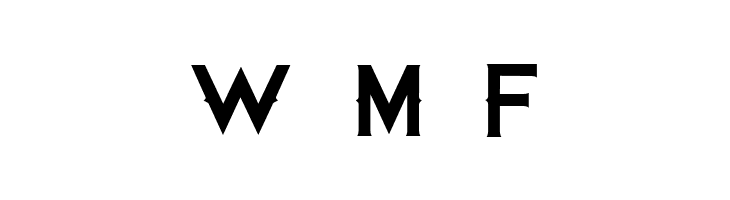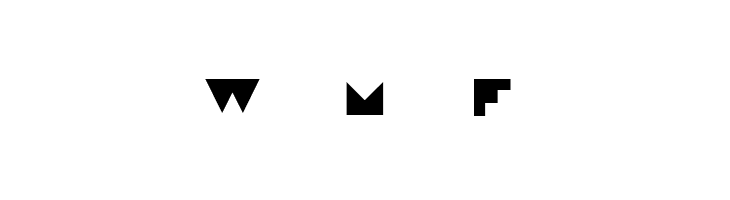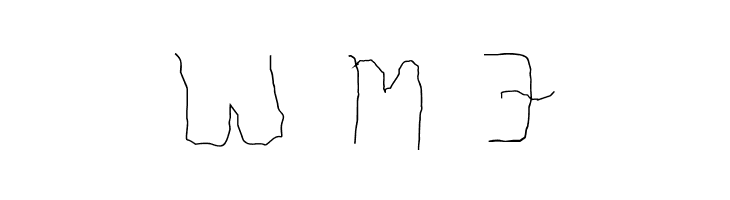
( Dismantle Destroy - Matthew Tyndall - creativemarket.com/Dismantle )
A bold, modern font with vintage flair and high contrast, ideal for impactful designs.
( Emile, Byeongsu Kim - panopt.net )
A dual-style font with bold geometric and thin minimalist uppercase letters.
( Frances Jimenez )
A bold, playful font with thick, irregular strokes and a hand-drawn appearance.
( Frances Jimenez )
A playful, hand-drawn font with thin, uneven strokes and a whimsical style.
( Gabriel De Ioannes Becker - www.flickr.com/photos/gdidesign/ )
A minimalist, geometric font with thin lines and a modern aesthetic.
( Gilang Purnama Jaya - Gilang Purnama - geesucks.wordpress.com/ )
Bold, angular Gothic-inspired font with dramatic strokes.
( HENRIavecunK - Henrik )
A modern gothic font with tall, narrow letterforms and a hand-drawn feel.
( Henrik Johansson - mediocre.se )
A sleek, geometric font with thin lines and a modern aesthetic.
( HypeForType.com - Alex Haigh - www.hypefortype.com )
A sleek, modern 3D font with clean lines and a dynamic, futuristic appearance.
A modern, geometric font with a thin outline and italic style, perfect for futuristic designs.
A futuristic, geometric font with thin outlines and angular shapes.
A bold, slanted font with thick strokes and a dynamic, modern style.
A bold, italicized font with thick strokes and tight spacing, perfect for impactful headlines.
A bold, slanted font with thick, blocky characters and a modern, energetic style.
A bold, heavy font with thick strokes and a strong, impactful presence.
( Jens Cherukad )
A futuristic font with thin vertical stripes creating a digital, modern look.
( Jonathan S. Harris - www.tattoowoo.com )
A dynamic and fluid script font with elegant, flowing letterforms and high contrast.
( Kenneth Lamug - www.rabbleboy.com/ )
A playful, casual handwritten font with thin, organic strokes.
( Lettersiro Studio - Muhammad Sirojuddin - creativemarket.com/Lettersiro )
A bold, playful font with whimsical curves and clear readability.
( Levi Szekeres - www.loremipsum.ro )
A sleek, modern, and thin italic font with elongated letterforms.
( Levi Szekeres - www.loremipsum.ro )
A sleek, modern font with thin, elongated letterforms and a minimalist design.
( Levi Szekeres - www.loremipsum.ro )
A thin, italic, stencil-style font with a modern and dynamic appearance.
( Levi Szekeres - www.loremipsum.ro )
A modern, thin stencil font with clean lines and geometric shapes.
( LingDong Huang )
A bold, pixelated Gothic font with a digital, retro vibe.
( MTF - Miss Tiina - misstiina.com )
A bold slab serif font with strong, block-like serifs and balanced spacing.
( Manuel Lage - napojozare.jimdo.com )
A playful, handwritten font with thin, irregular strokes and a casual style.
( Mirco Zett - www.mirco-zett.de )
A bold, Gothic-inspired font with sharp angles and brush-like strokes.
( Mirz123 - Michelle Lehmann - www.scriptmonkeys.us )
A modern, condensed font with thin, elongated strokes and a futuristic style.
( Måns Grebäck - www.mansgreback.com )
A delicate and elegant script font with thin, flowing lines.
( Måns Grebäck - www.mansgreback.com )
An elegant, decorative script font with thin, flowing lines and intricate swirls.
( Måns Grebäck - www.mansgreback.com )
A thin, elegant script font with flowing, graceful curves.
( Måns Grebäck - www.mansgreback.com )
A thin, elegant script font with flowing lines and a sophisticated style.
( Måns Grebäck - www.mansgreback.com )
A sleek, modern font with thin, clean lines and geometric structure.
( Måns Grebäck - www.mansgreback.com )
A sleek, modern thin italic font with geometric precision and elegance.
( Måns Grebäck - www.mansgreback.com )
A modern, thin sans-serif font with clean lines and elegant simplicity.